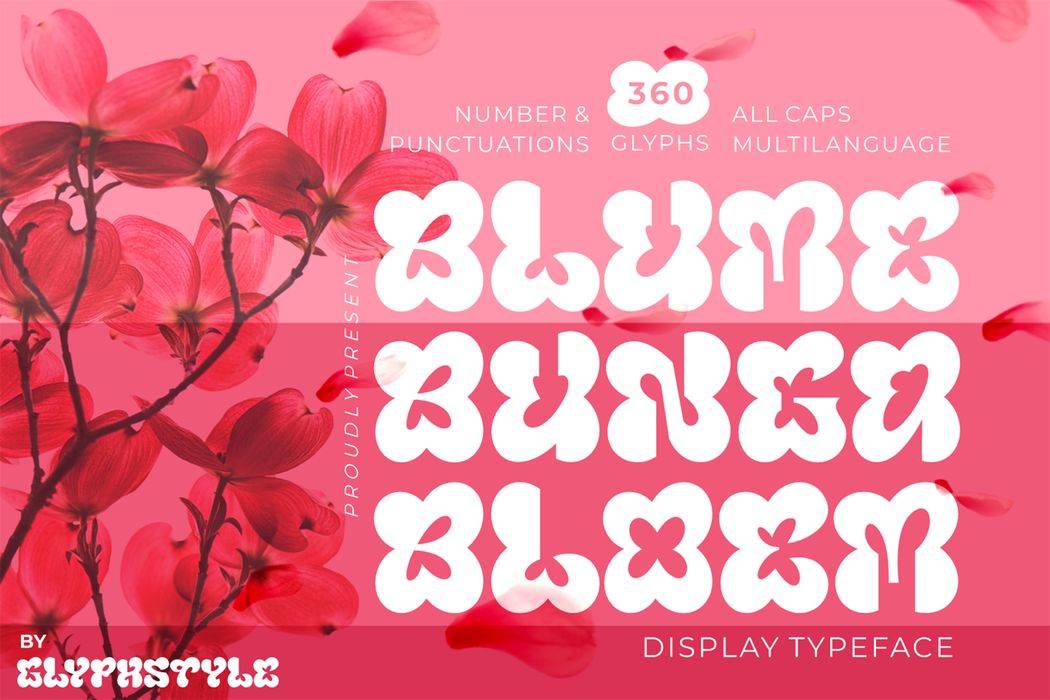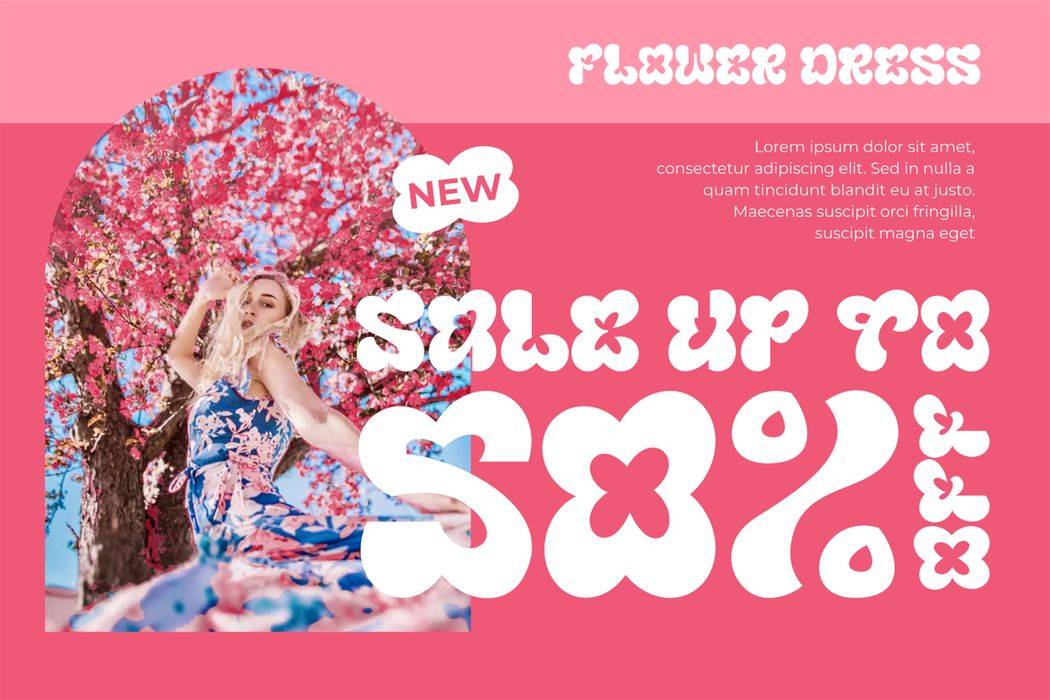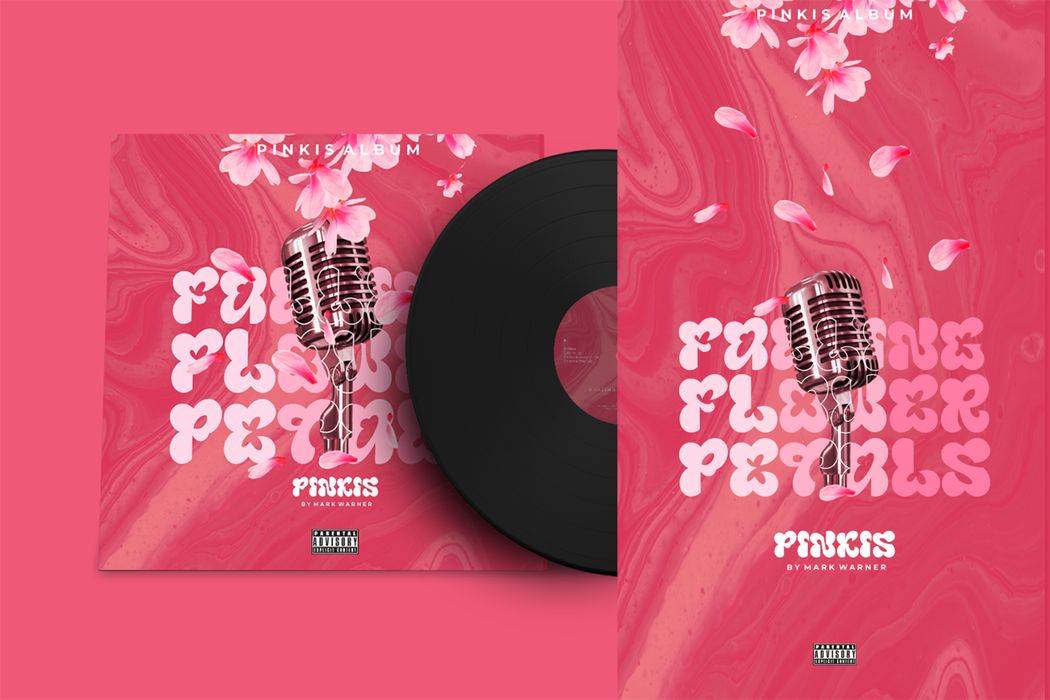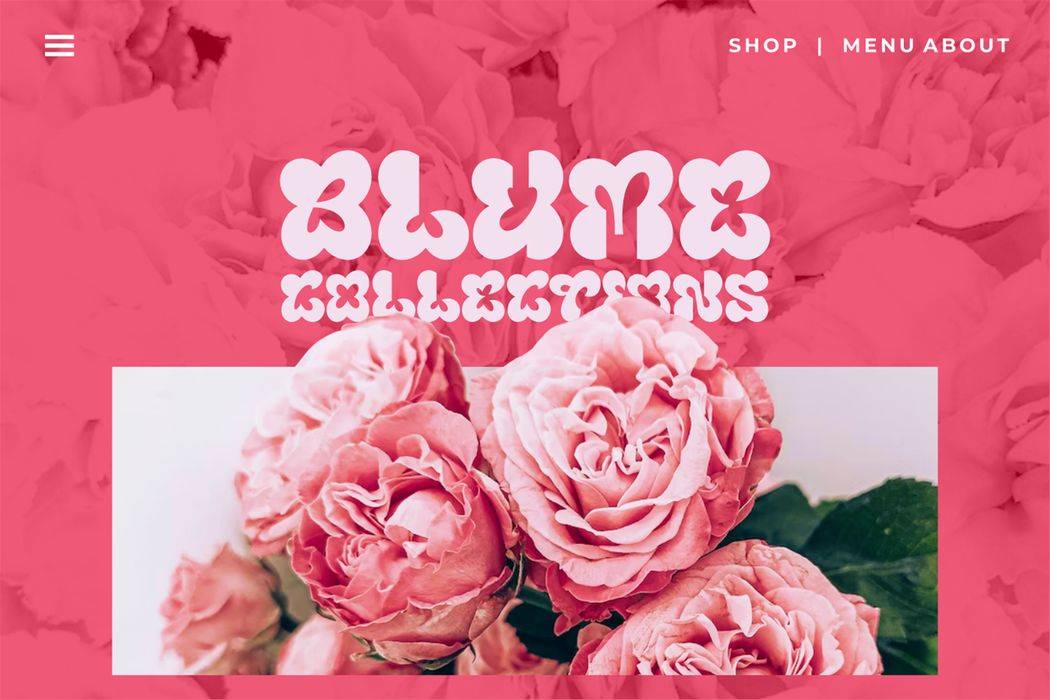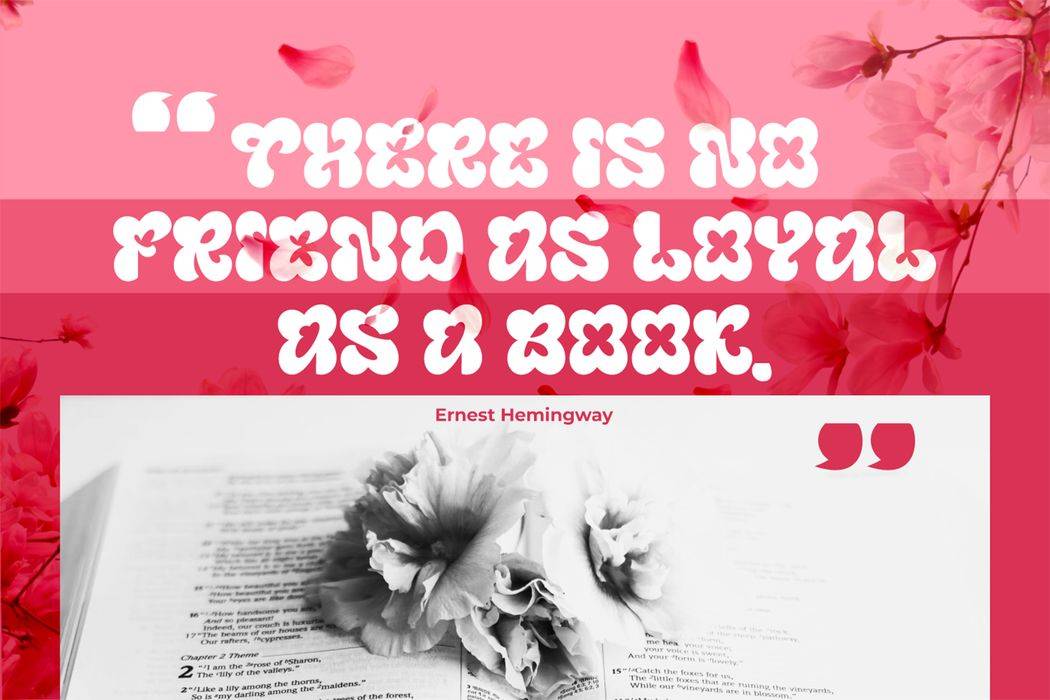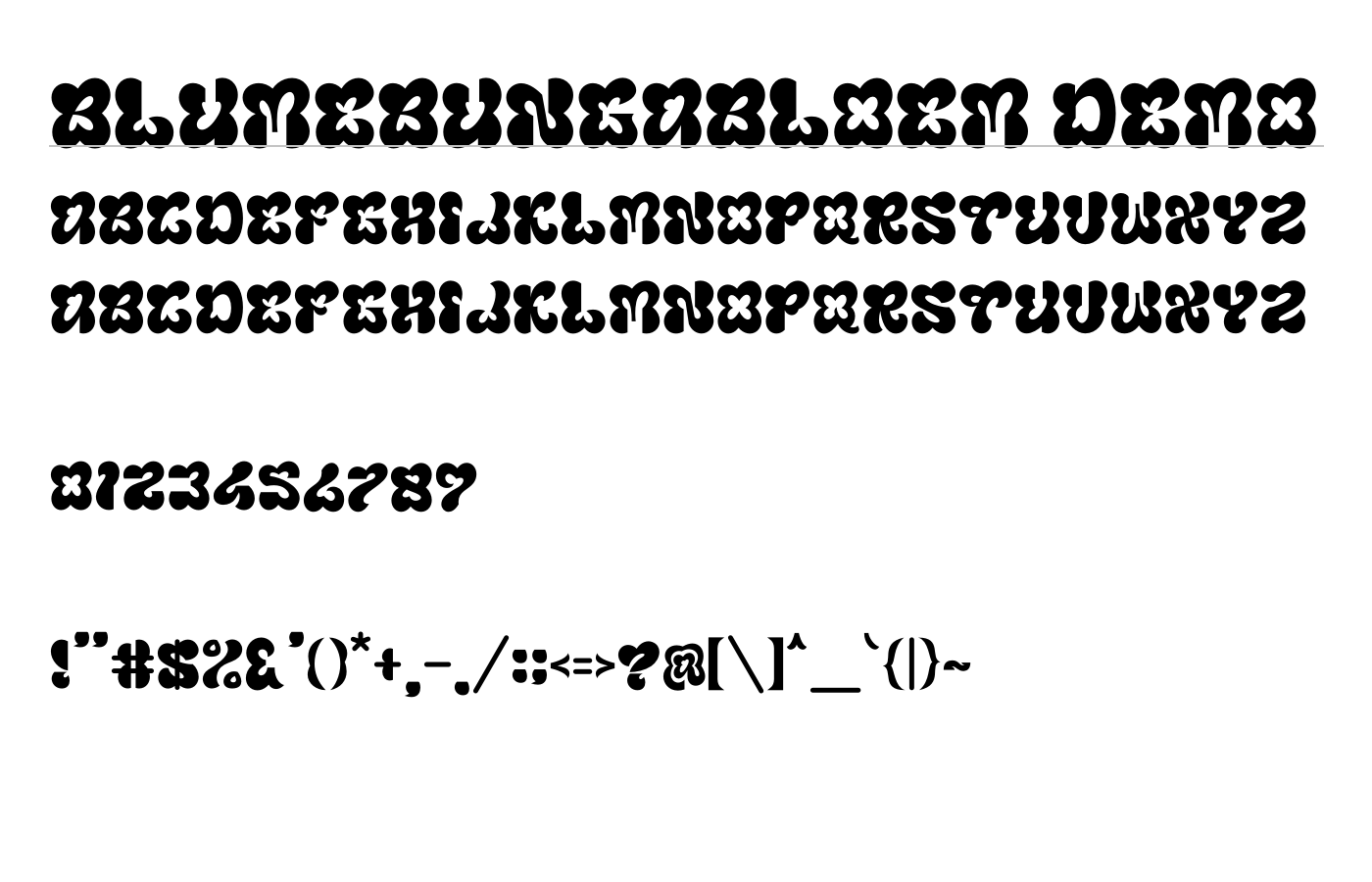
Blumebungabloem is a bold, playful display font featuring rounded, floral-inspired shapes that create a whimsical and eye-catching appearance. Its heavy weight and soft, curvy edges give it a distinctive, approachable feel, ideal for creative branding, posters, or headlines where a fun, expressive style is desired. This font works best in decorative contexts where impact and personality are key.
Blumebungabloem Font
About Blumebungabloem Font
| Font family | Blumebungabloem Font |
| Designer | Glyphstyle |